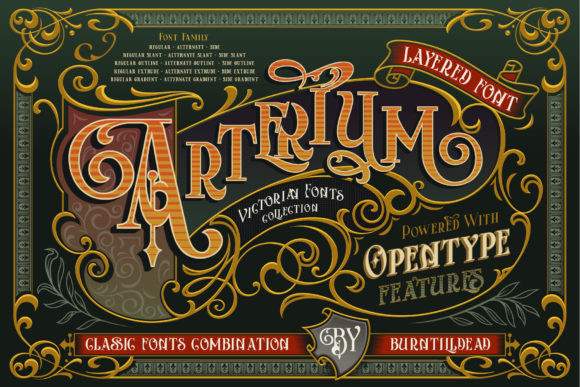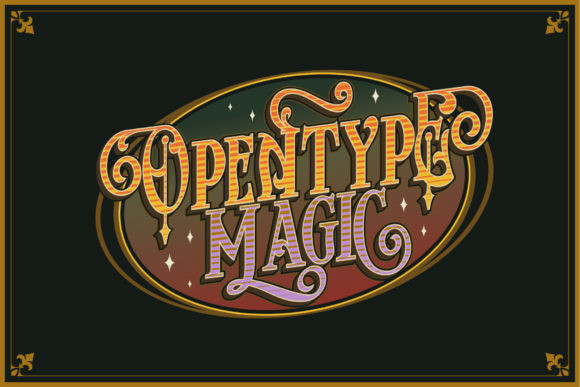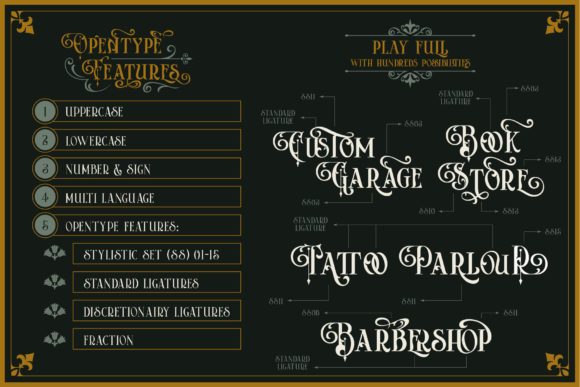
Arterium Font
Arterium is a bold, classic and elegant serif font. Add this imposing font to your library, and employ it to your most favorite creations. Arterium is PUA encoded which means you can access all of the glyphs and swashes with ease!